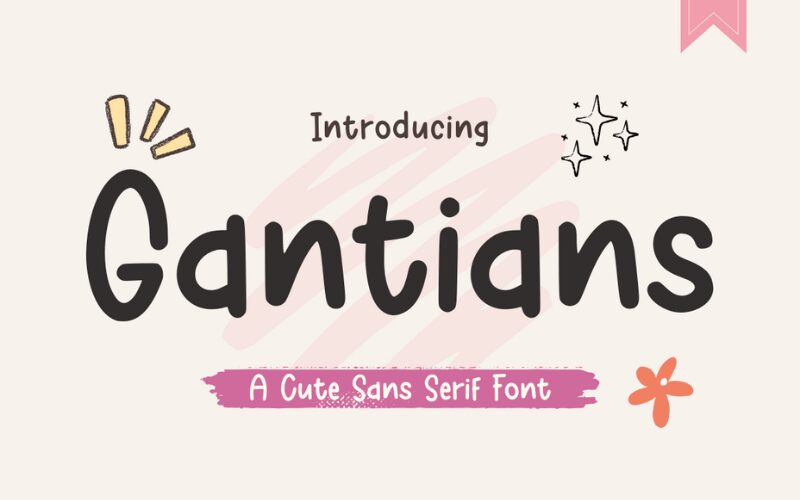
Gantians
Gantians font by Creavibes Design is a free handwritten typeface that hits that sweet spot between playful and readable. Its rounded, chunky strokes feel like they were written with a smooth marker, giving every word a friendly, approachable warmth without slipping into messiness. Letters sit comfortably close, forming an easy rhythm that works just as well in a short headline as in a longer phrase or tagline.
Using Gantians, you can bring a relaxed, human touch to logos, quote graphics, kids’ book covers, birthday invitations, product packaging, and social media posts. This free font shines when you let it breathe at medium to large sizes, where its soft curves really show. Pair it with a simple, neutral sans serif for body text to keep your layouts clean while Gantians carries the personality up top.